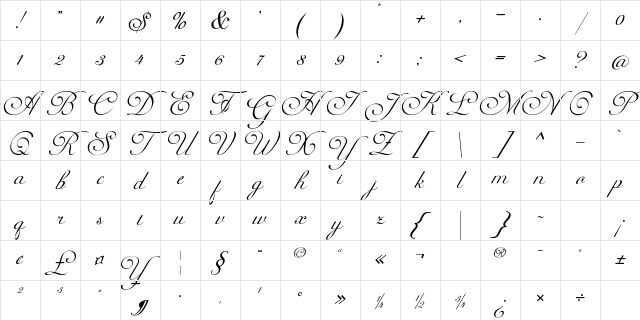
Kalina Regular
Foundry: RGB Studio
Designer: MOH. MA'IN
Design Context for Kalina
Kalina is a composed and adaptable typeface that performs quietly and consistently across a wide range of design contexts.